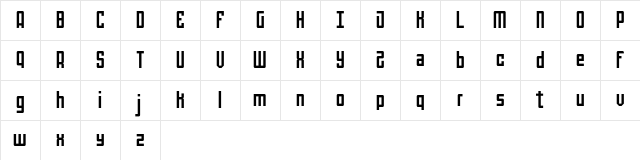
Mechanical FREE Regular
Design Context for Mechanical FREE Typeface
Mechanical FREE takes a measured approach to typography — its balanced proportions and neutral character make it a reliable workhorse for both digital and print work.
Pro Tip: Use Mechanical FREE in both headline and body roles to test its range before committing to a single application.